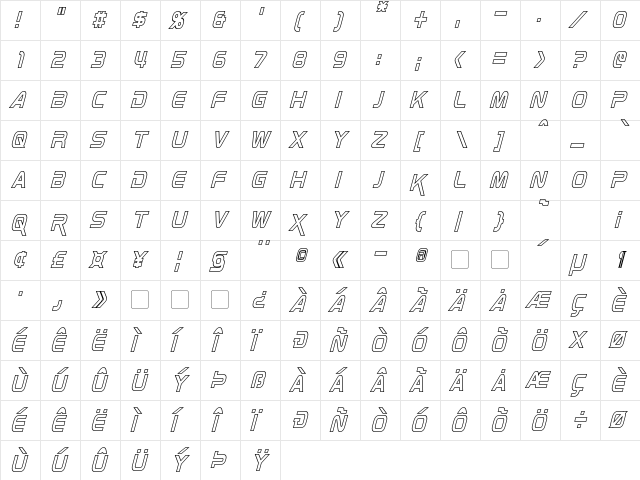
Zebulon Condensed Hollow Italic Font Preview
| Foundry | Neale Davidson |
| Designer | Neale Davidson |
Design Context for Zebulon Condensed Hollow Typeface
Zebulon Condensed Hollow offers clean, dependable letterforms without strong stylistic allegiance, making it a practical choice for designers who need flexibility. Its italic angle brings a sense of urgency and motion to the letterforms. Its narrow stance lets it pack a punch even in space-constrained designs.
Pro Tip: Use Zebulon Condensed Hollow for emphasis, pull quotes, and subheadings where its slanted energy can add rhythm to the layout.